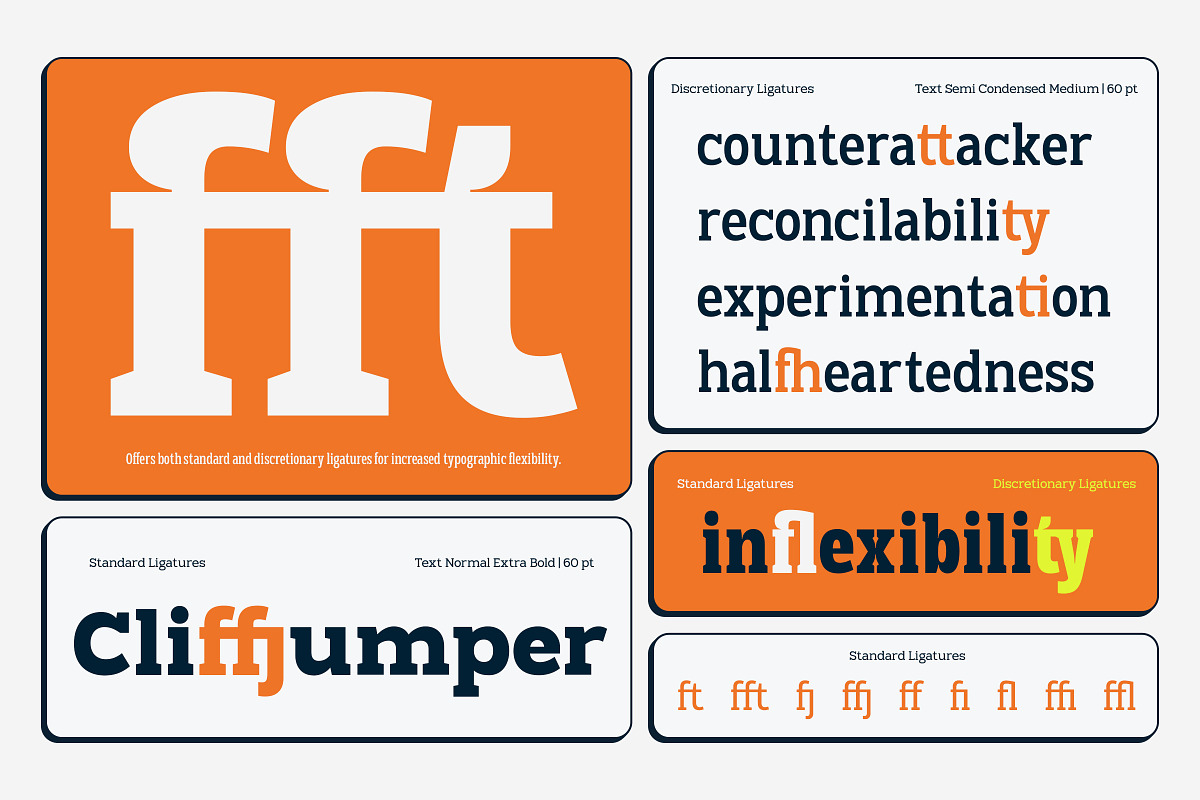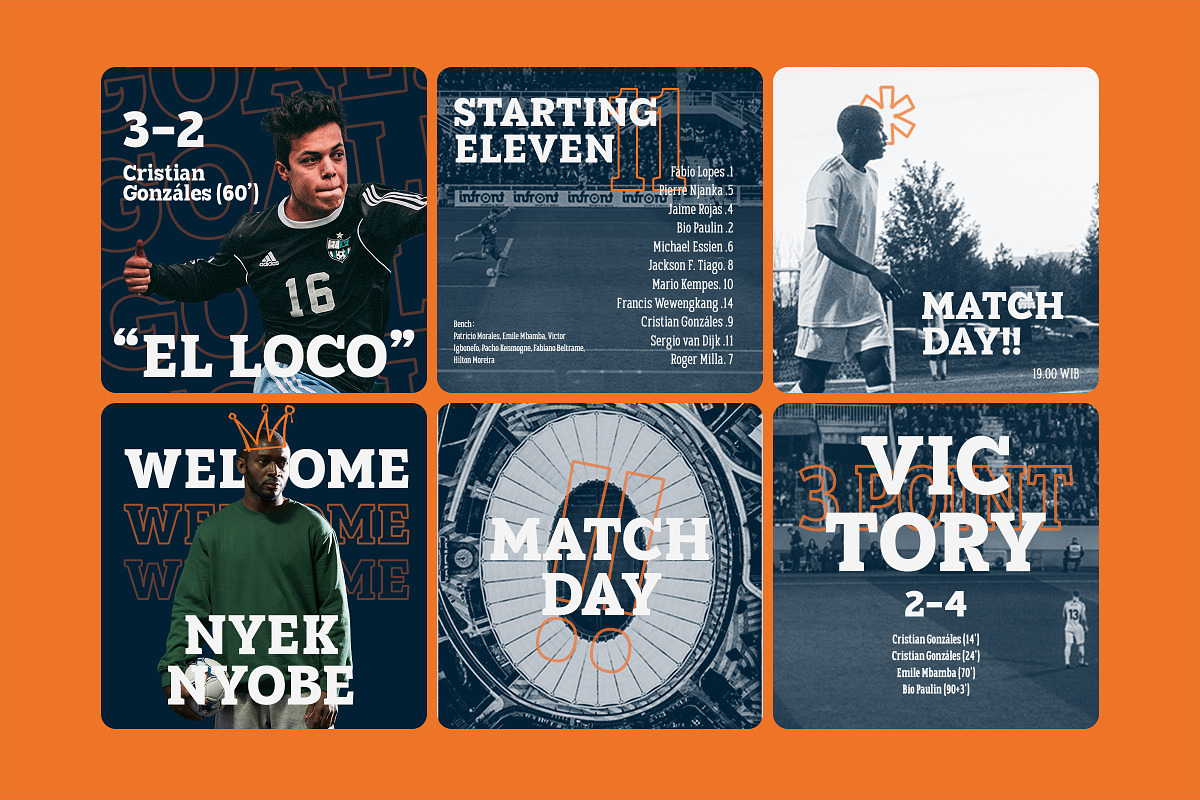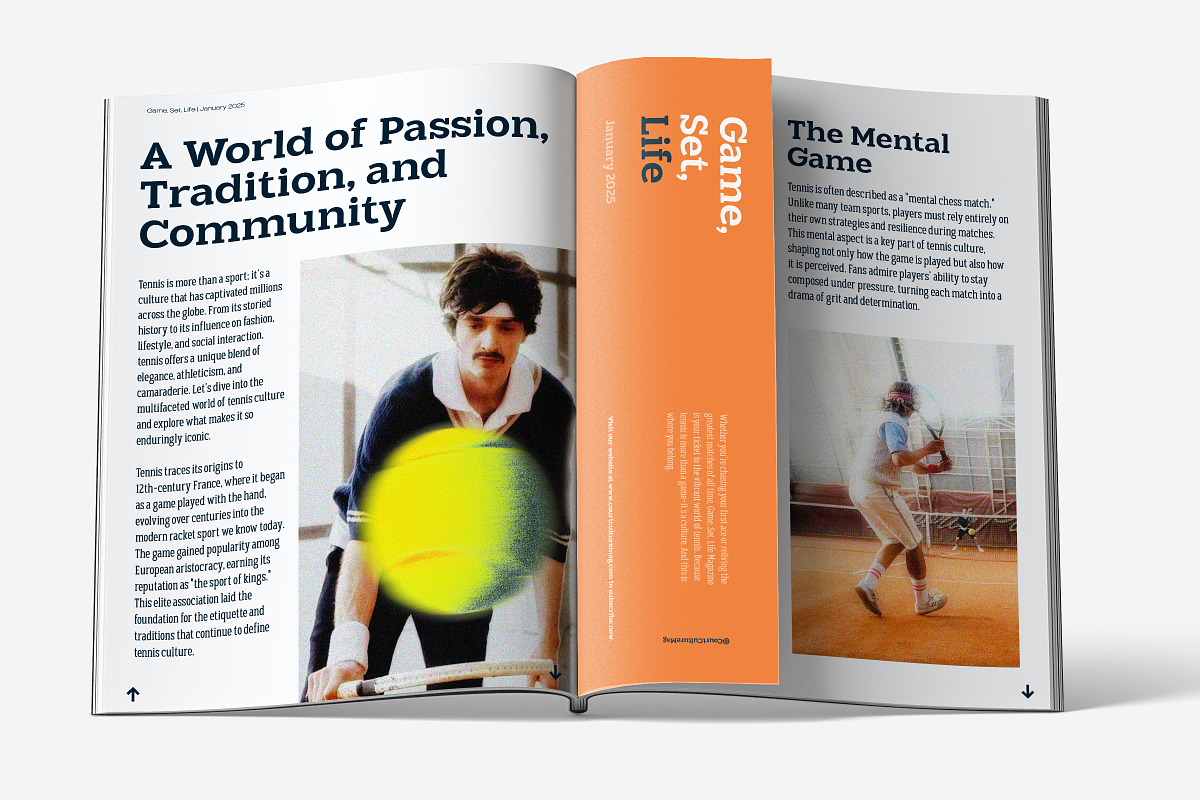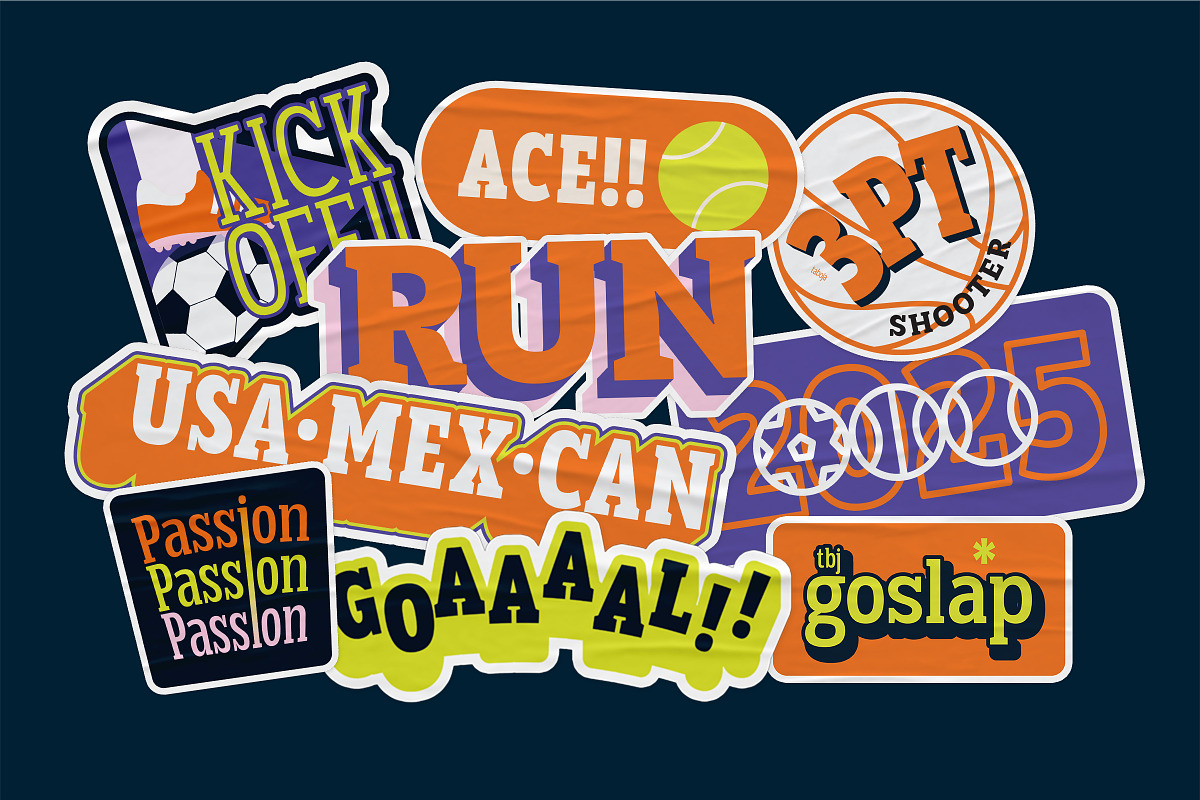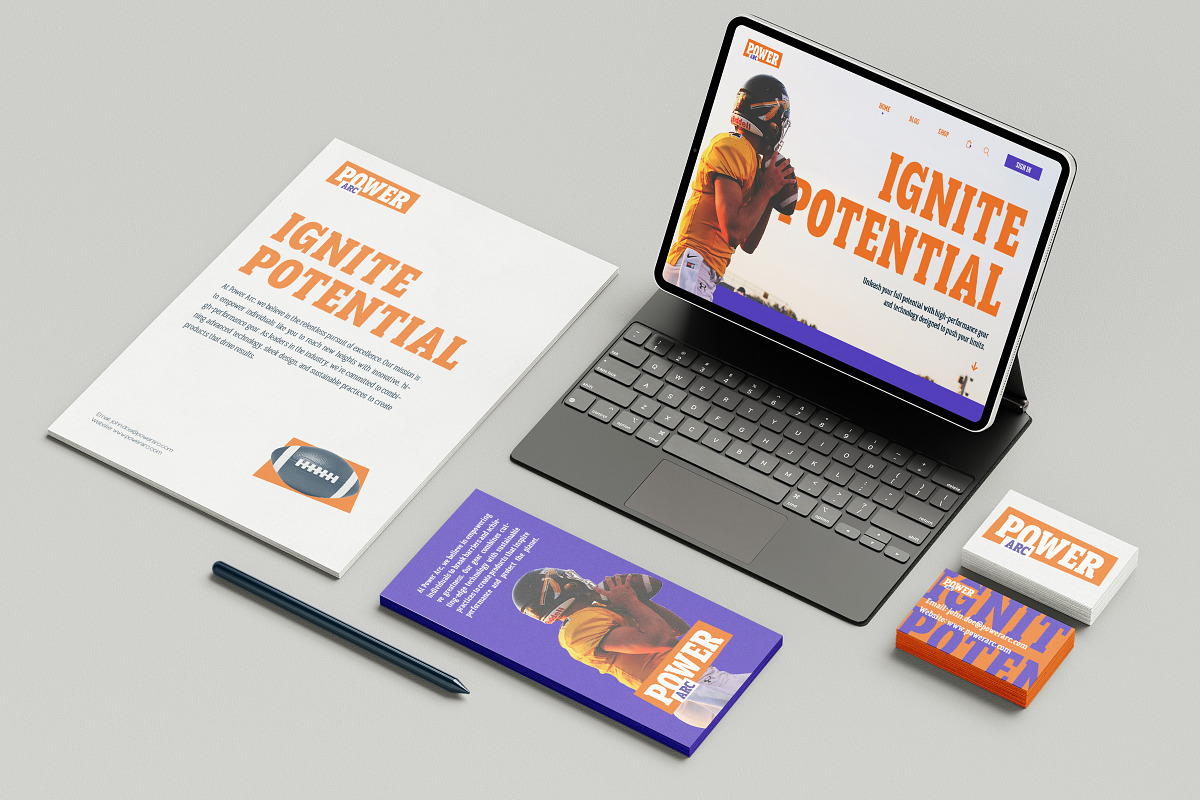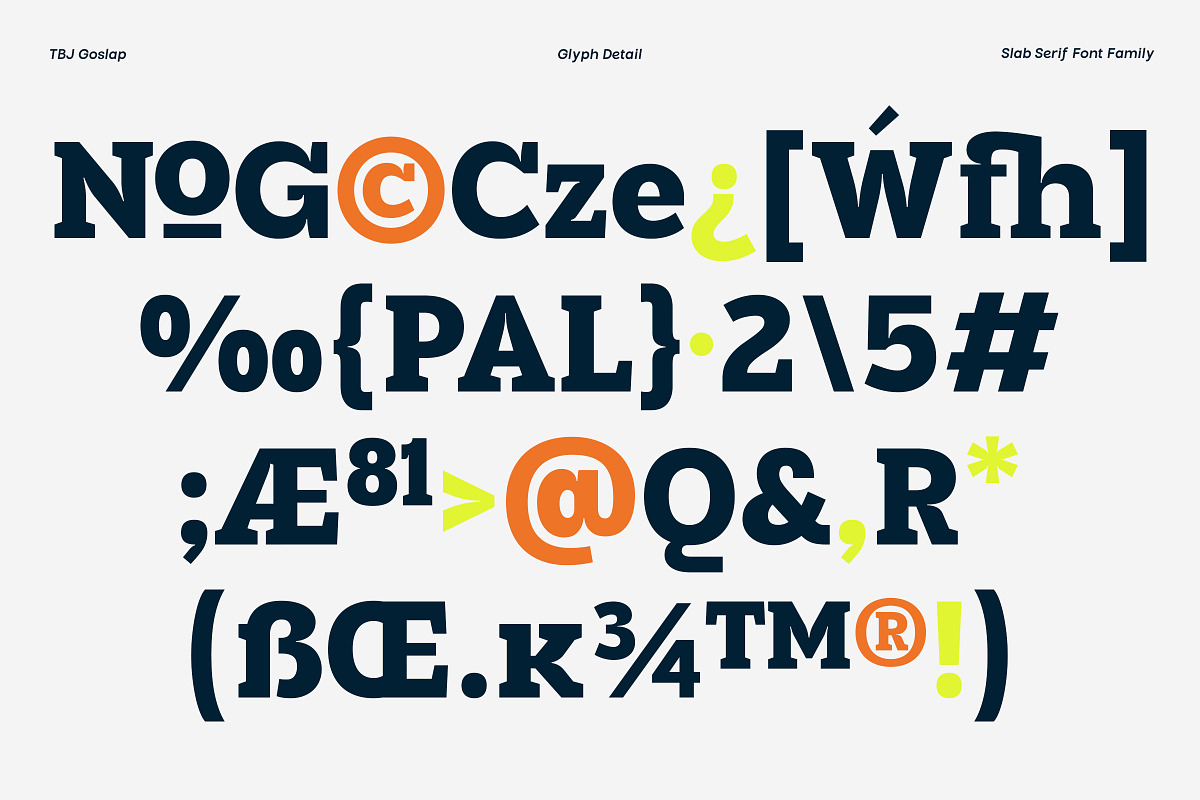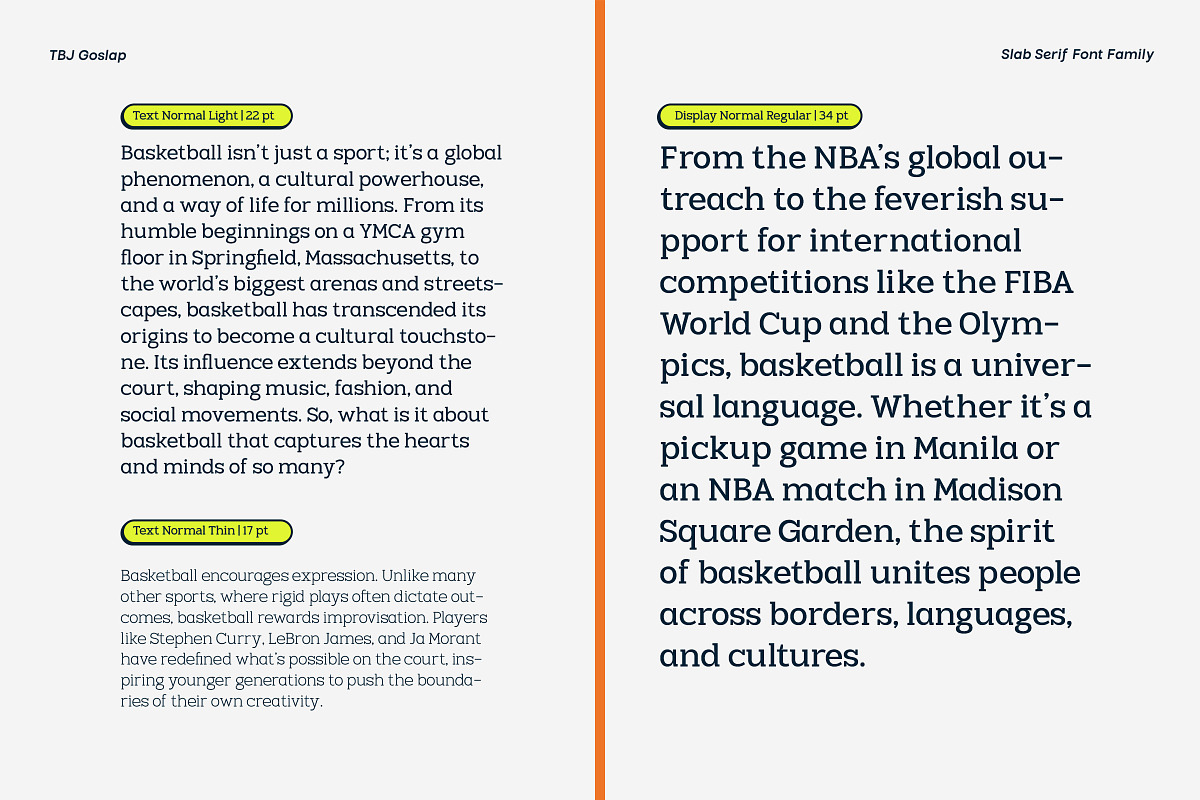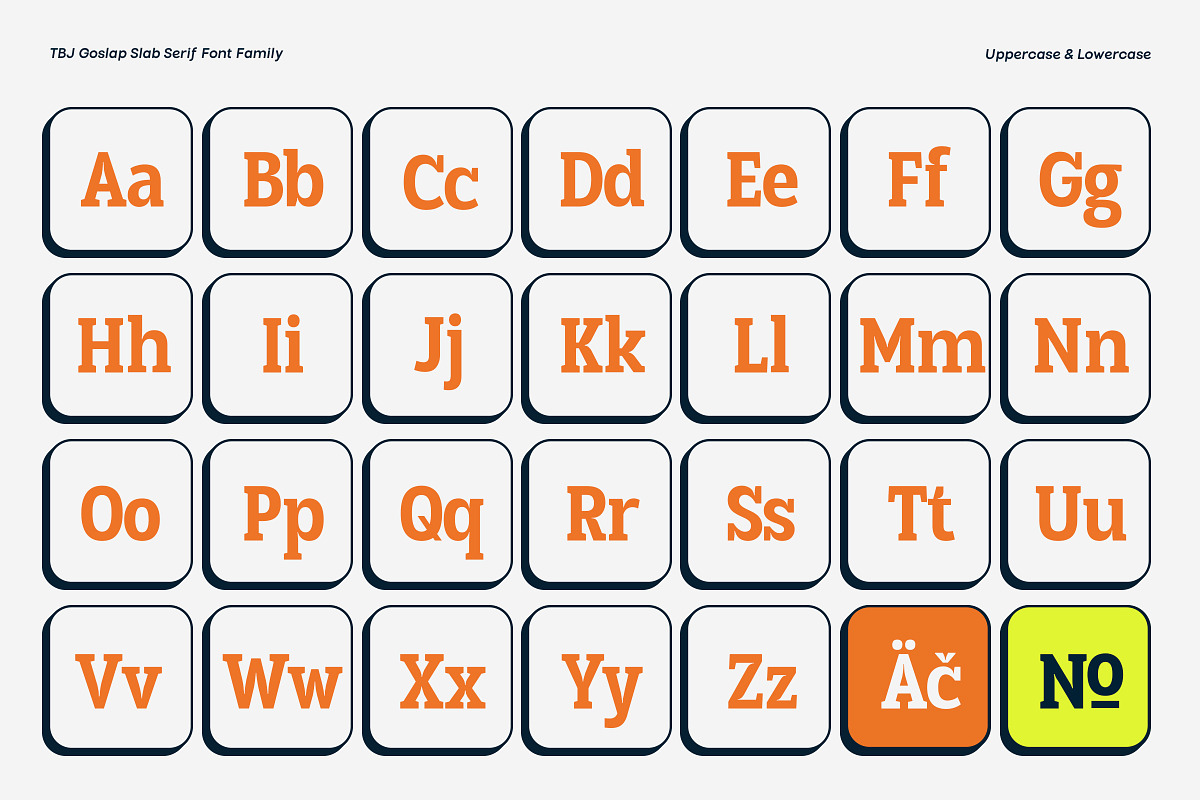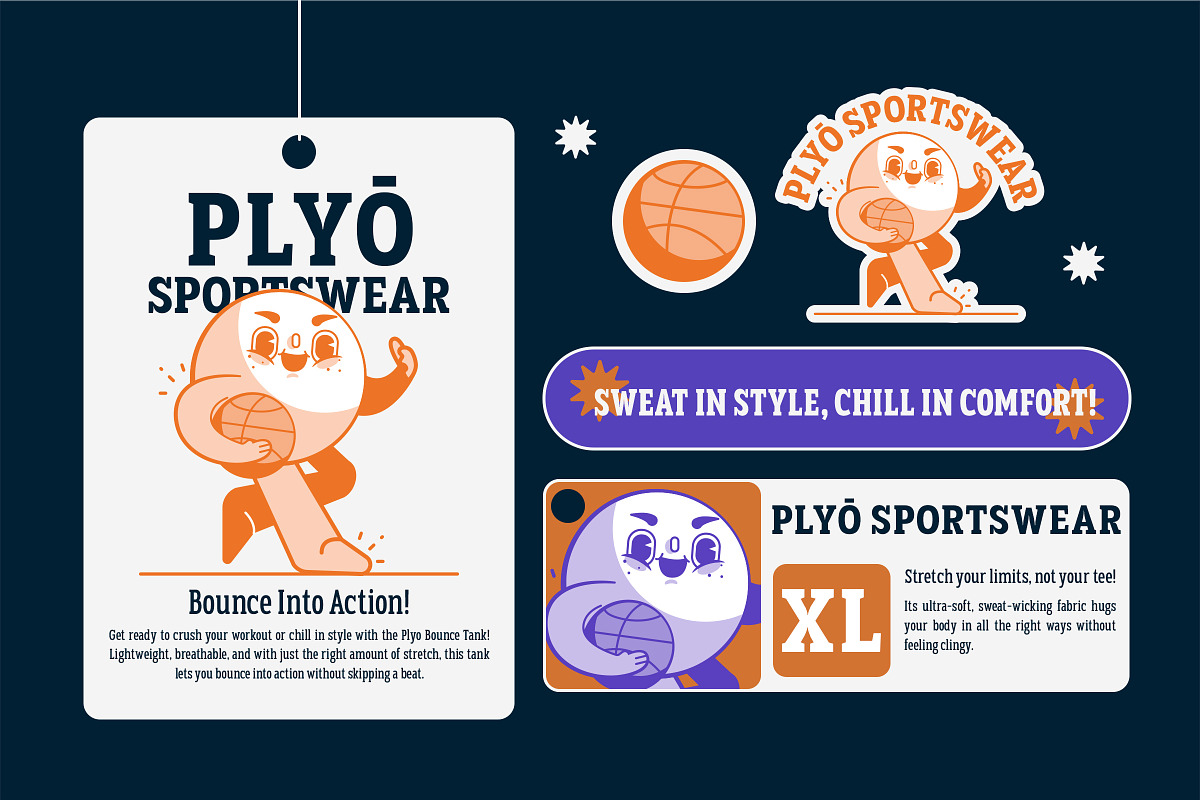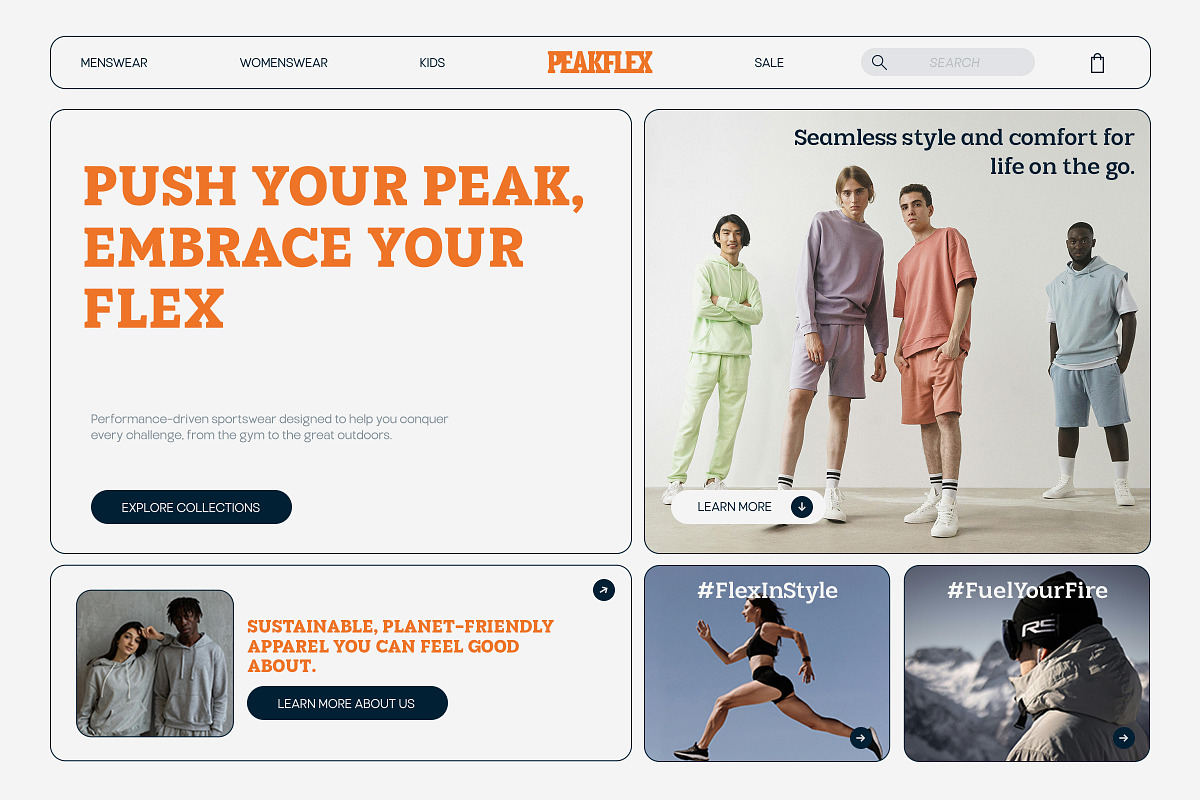
TBJ Goslap Slab Font Family
We asked ourselves, "What if we could craft a slab serif font that’s bold yet adaptable, functional yet packed with character?" And that’s how TBJ Goslap was born—a font family designed to balance strength with refined aesthetics.
If you’ve worked with geometric sans serifs or robust typefaces, you’ll find TBJ Goslap a refreshing addition to your toolkit. While it shares a foundation of precision and versatility, TBJ Goslap is entirely its own creation.
Unlike traditional slab serifs characterized by rigid, rectangular serifs, TBJ Goslap introduces trapezoidal serifs—clean, modern, and subtly sophisticated. This design choice breaks away from the industrial feel of classic slabs, offering a contemporary edge that suits diverse design needs.
When developing TBJ Goslap, we aimed to avoid the overt historicism often associated with slab serifs. For instance, the Bold and Extra Bold weights were carefully refined to steer clear of the vintage “Wild West” aesthetic while maintaining the commanding presence needed for headlines. The result? A font that’s perfect for posters, sports branding, and packaging, without leaning too far into retro territory.
TBJ Goslap excels not only in its bold display styles but also in its optical versatility. With two optical sizes—Normal for text and Display for headlines—this typeface adapts effortlessly to different contexts. Whether you're creating impactful headlines or dense text arrays, TBJ Goslap delivers legibility and style in equal measure.
The font family includes:
9 Weights (from Thin to Bold) Variable Fonts, offering seamless control over weights, widths, and optical size. Alternate Glyphs and Ligatures, adding creativity and individuality to your designs. Multi-Language Support, covering over 200 languages.
With TBJ Goslap, you can achieve more than just a polished design—you can create a visual identity that commands attention, whether in print, digital, or packaging. This is a slab serif for designers who need a font that’s both functional and full of personality.